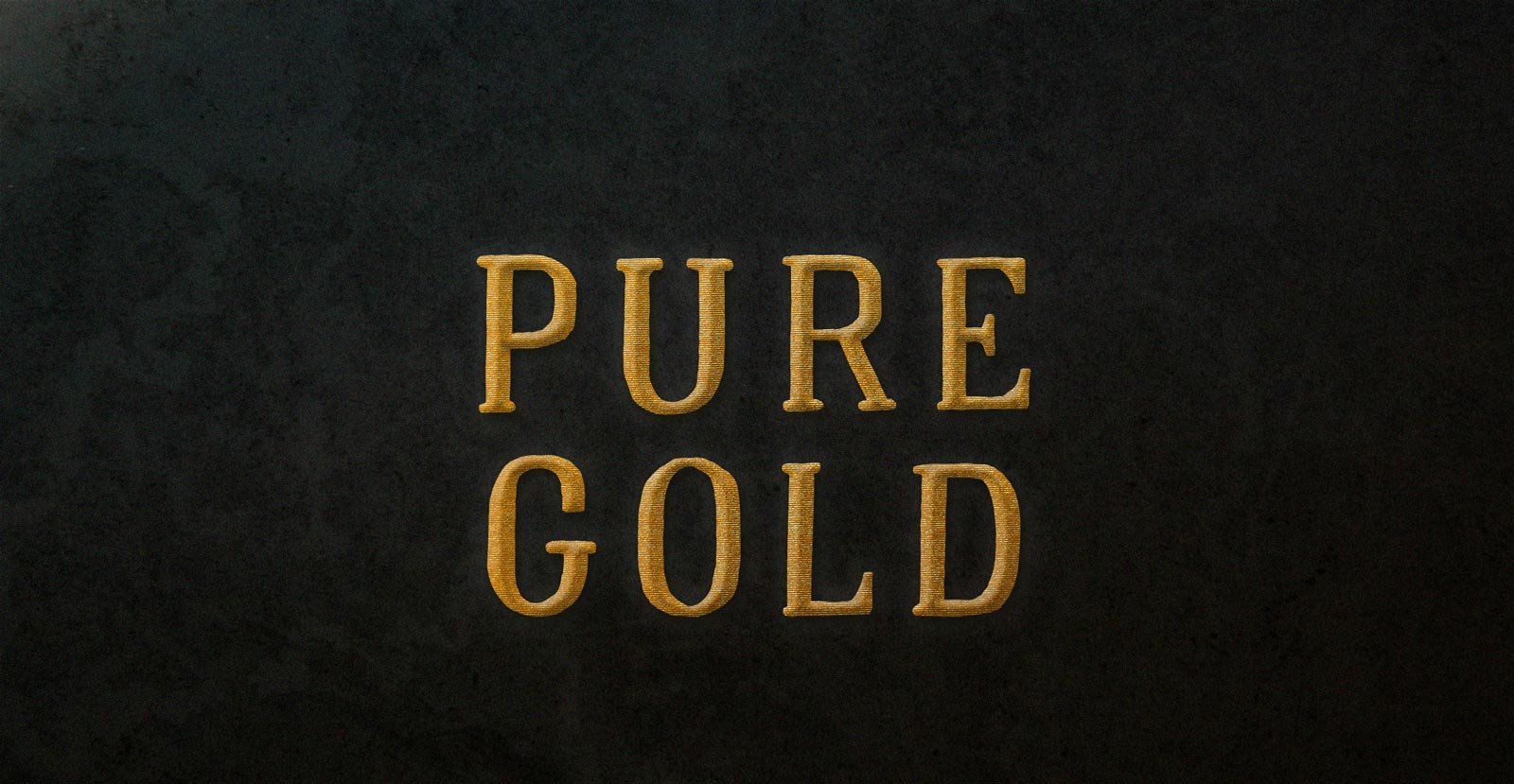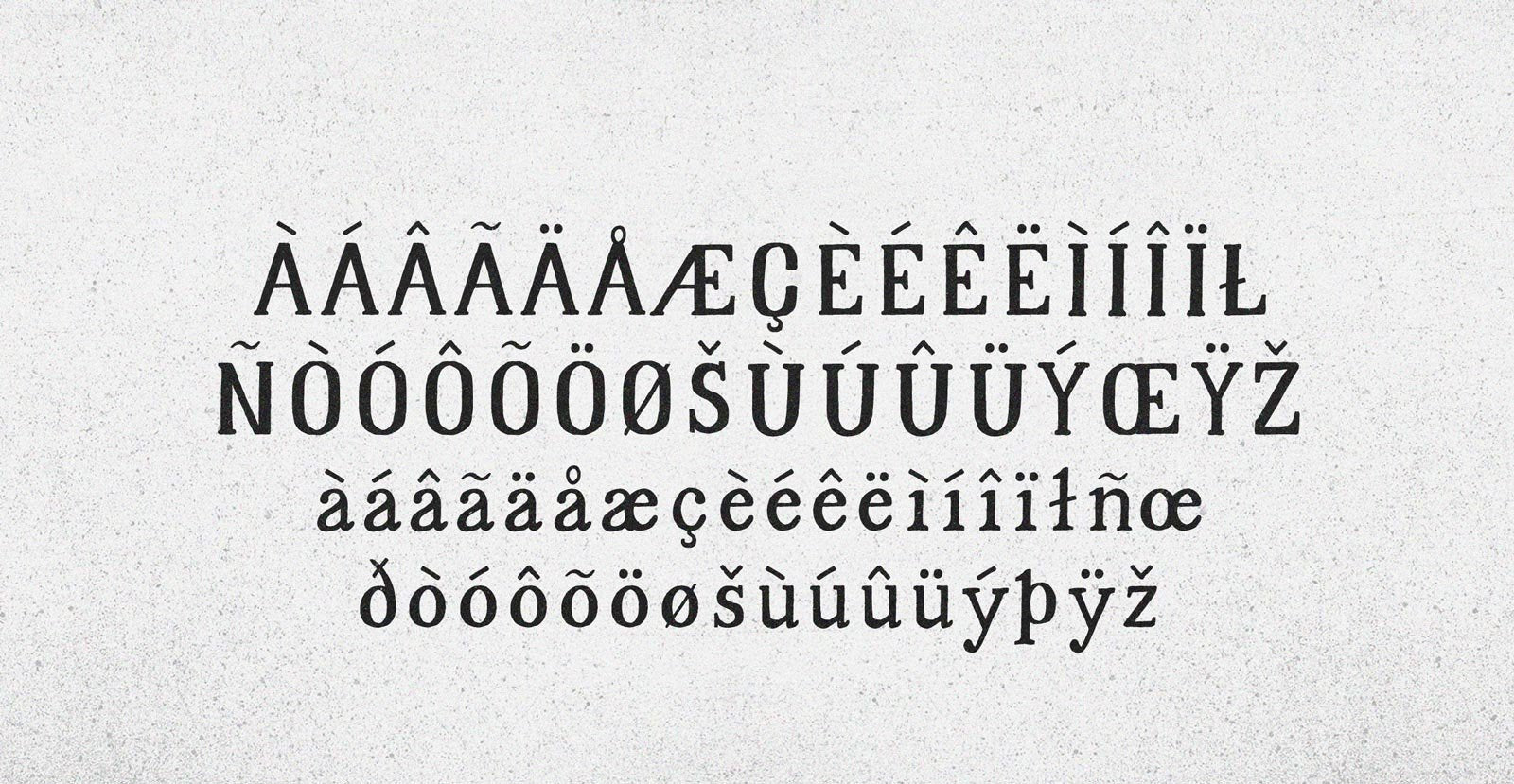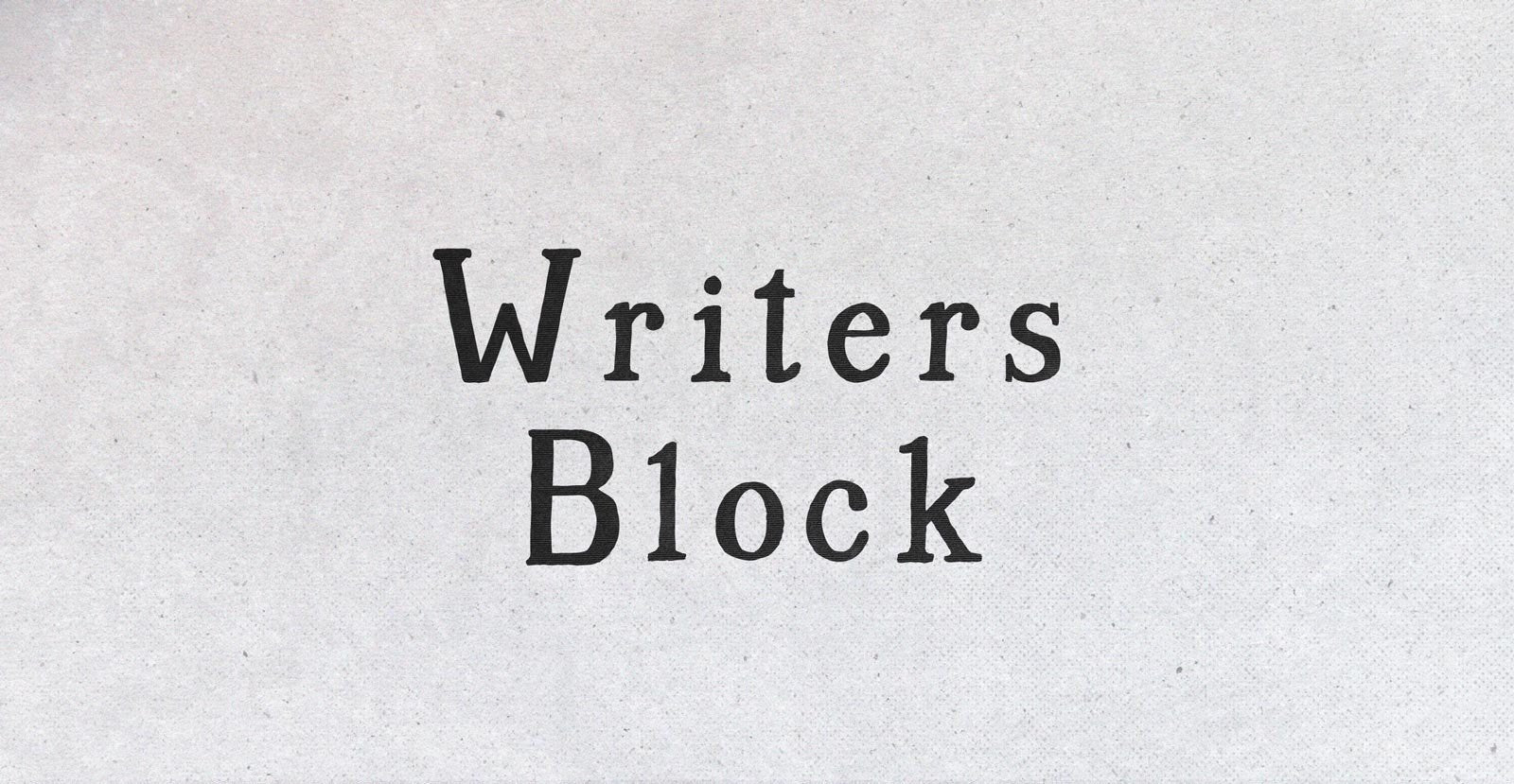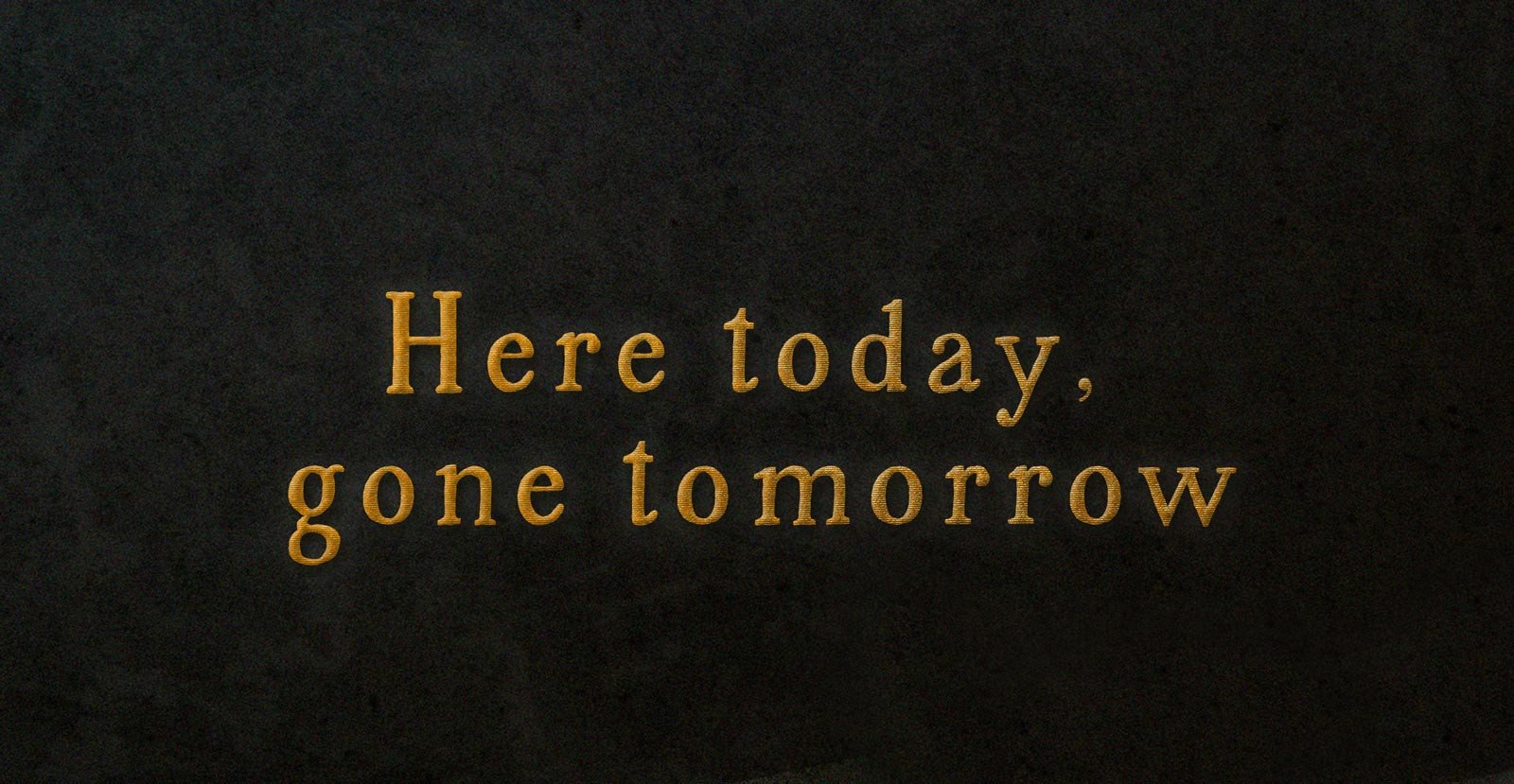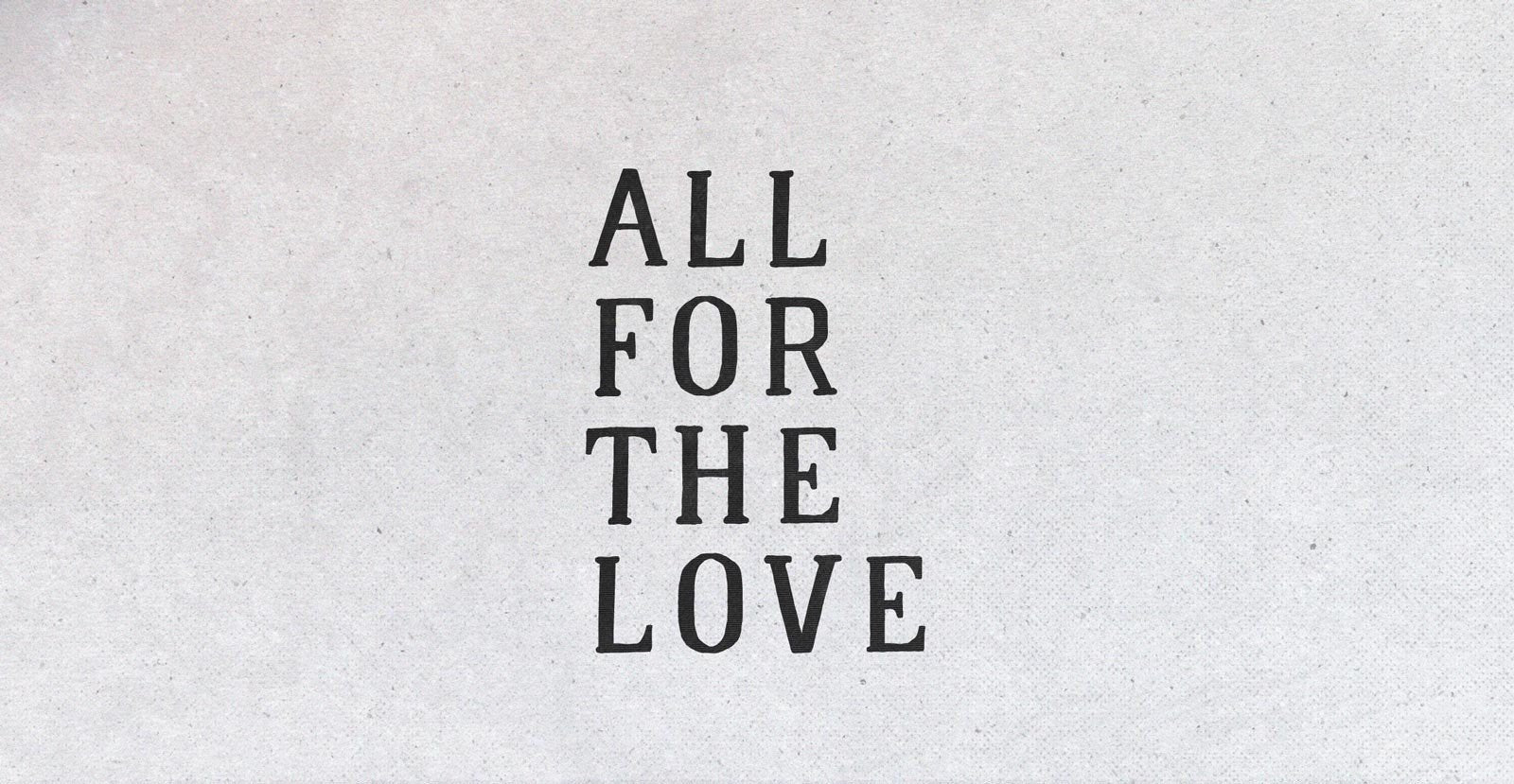
Pure Gold
Handwritten Serif Font
With his henchmen pressed back by the mob into the inner sanctum of his estate, Chas Moneyton took to the roof. He was running out of options. Dropping his duffel bags with a clank from his enormous yet soft hands he removed the bars within and arranged them in a plea to the sky. "HELP ME," the bars spelt, in Pure Gold.